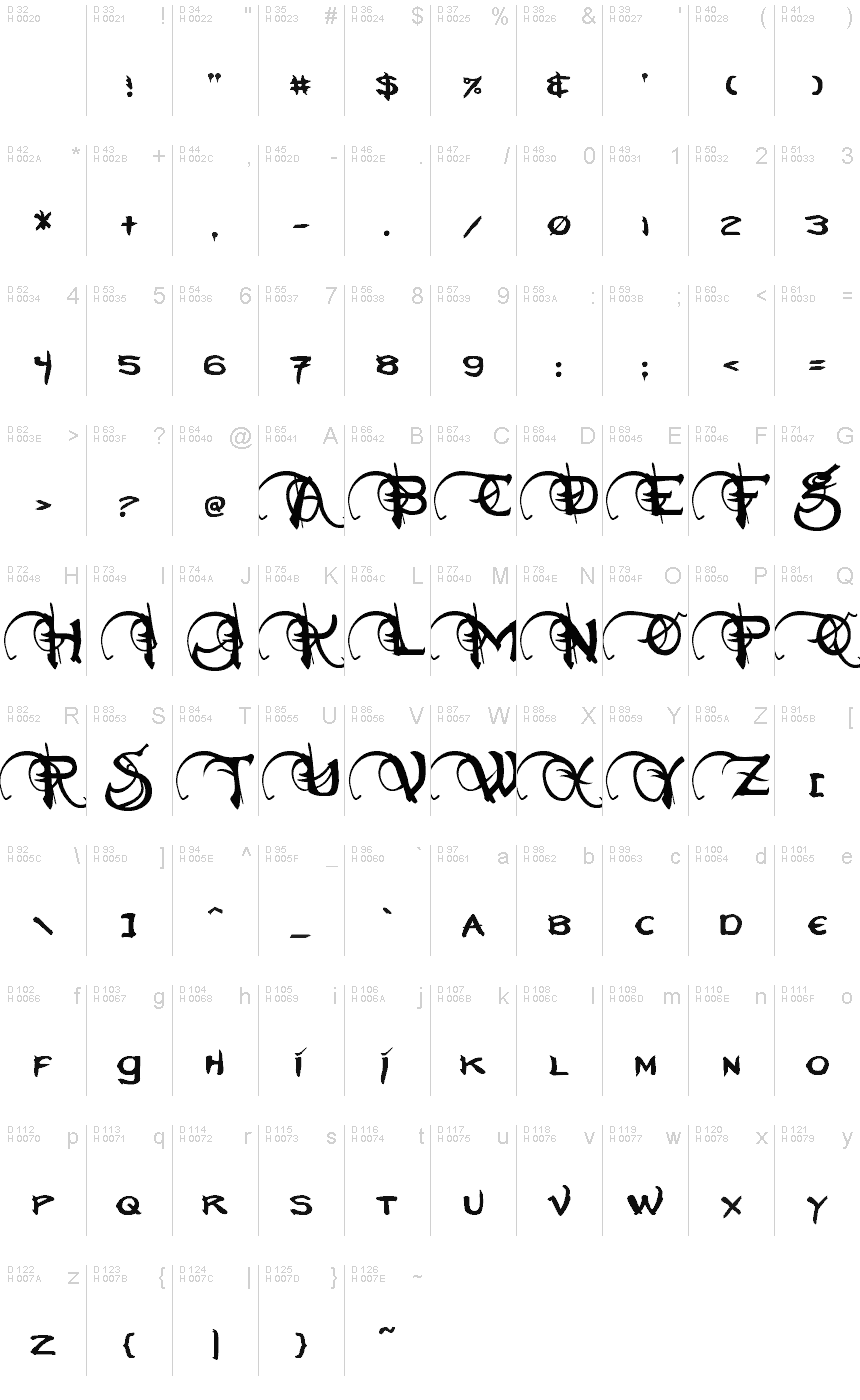
Neverwinter
Neverwinter by Neale Davidson is a free decorative display font with dramatic sweeping arcs and blade-like wedges. Its letters combine oversized loops, narrow upright marks, and pointed forms that overlap at several points. The result is ornate and restless.
Fantasy-themed design is its clearest setting, particularly for game title graphics and illustrated book covers rooted in medieval adventure. The dramatic silhouettes also suit concert posters and darkly styled merchandise, where the lettering can become part of a crest or band mark. Curved flourishes and sharp projections can echo illustrated weapons, horns, or tangled vines in the surrounding artwork.
Neverwinter is an updated typeface based on the logo of BioWare’s Dungeons & Dragons: Neverwinter Nights computer game. It has since become the official font.
It includes a full alphabet, extended punctuation, and the euro symbol, with regular, bold, italic, and bold-italic faces.